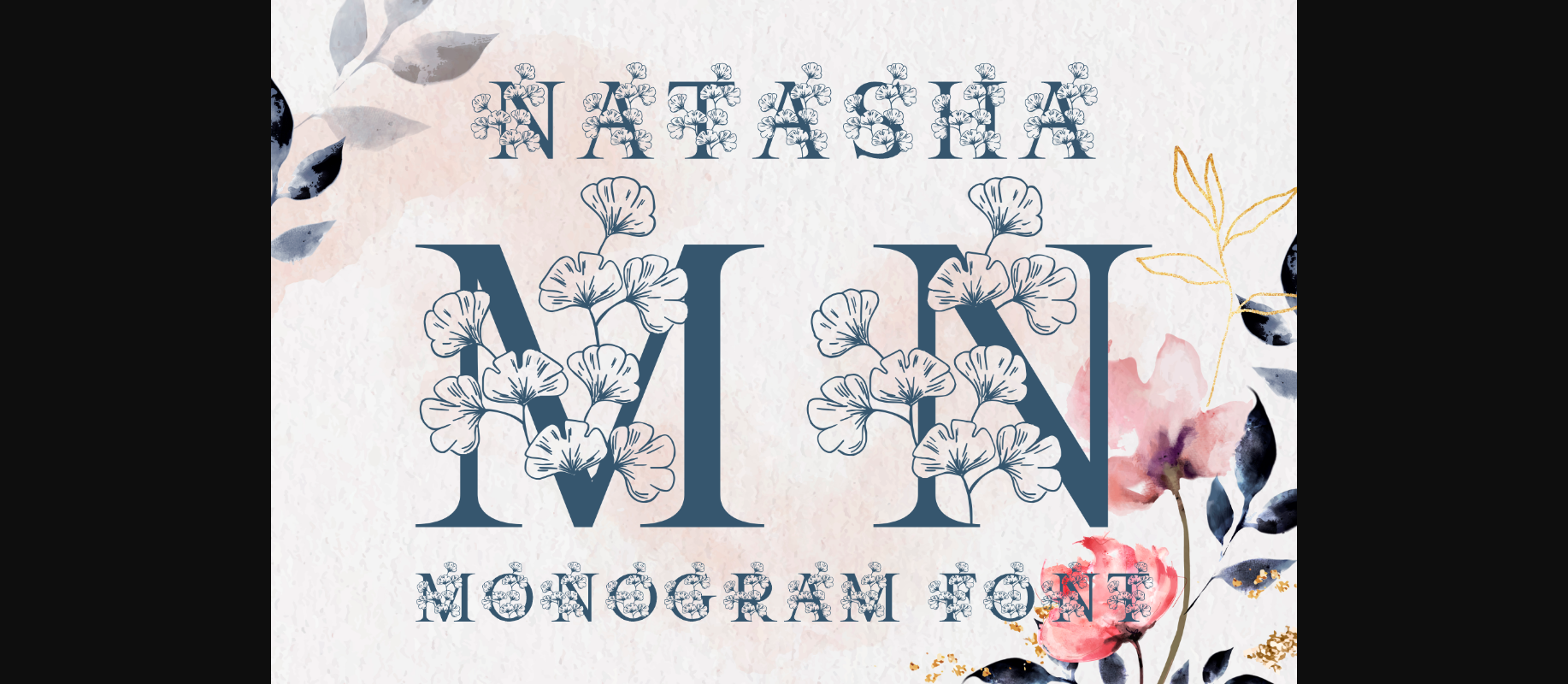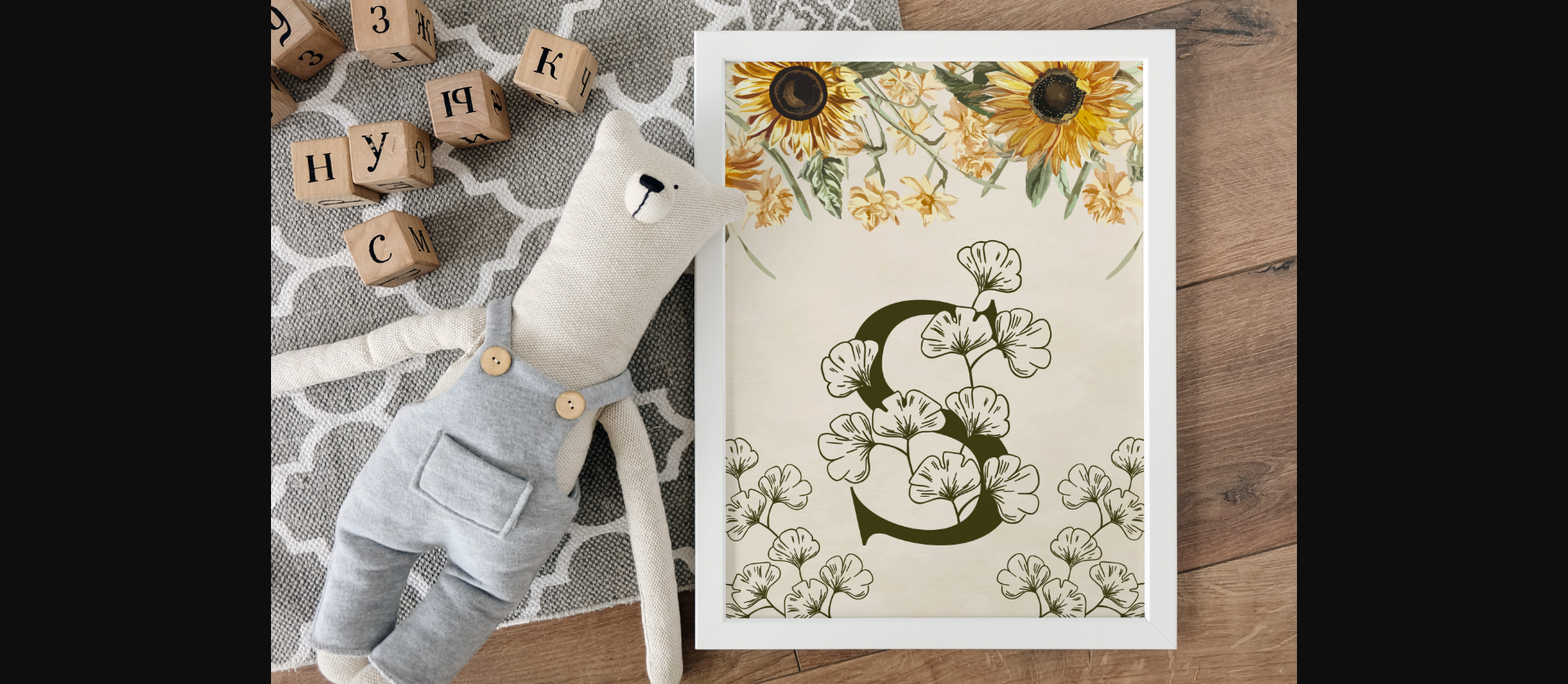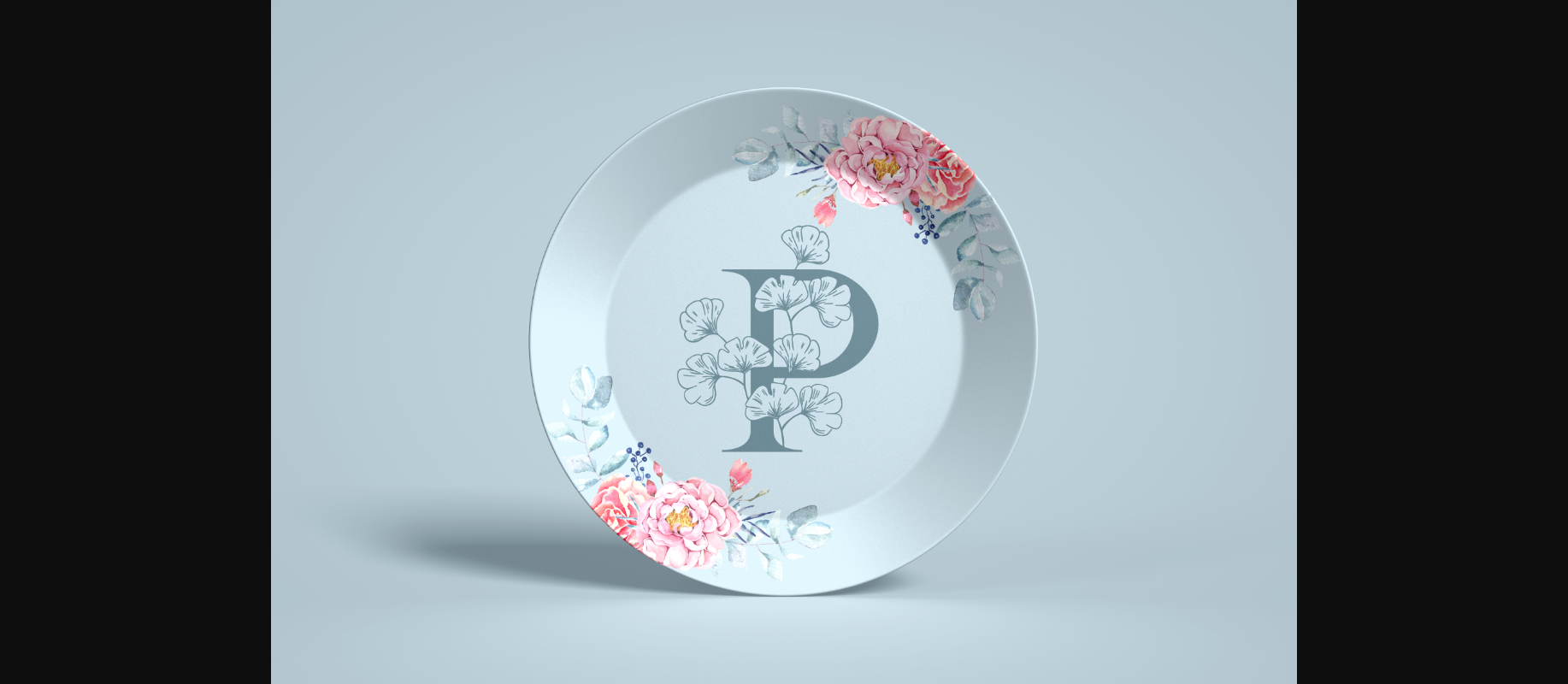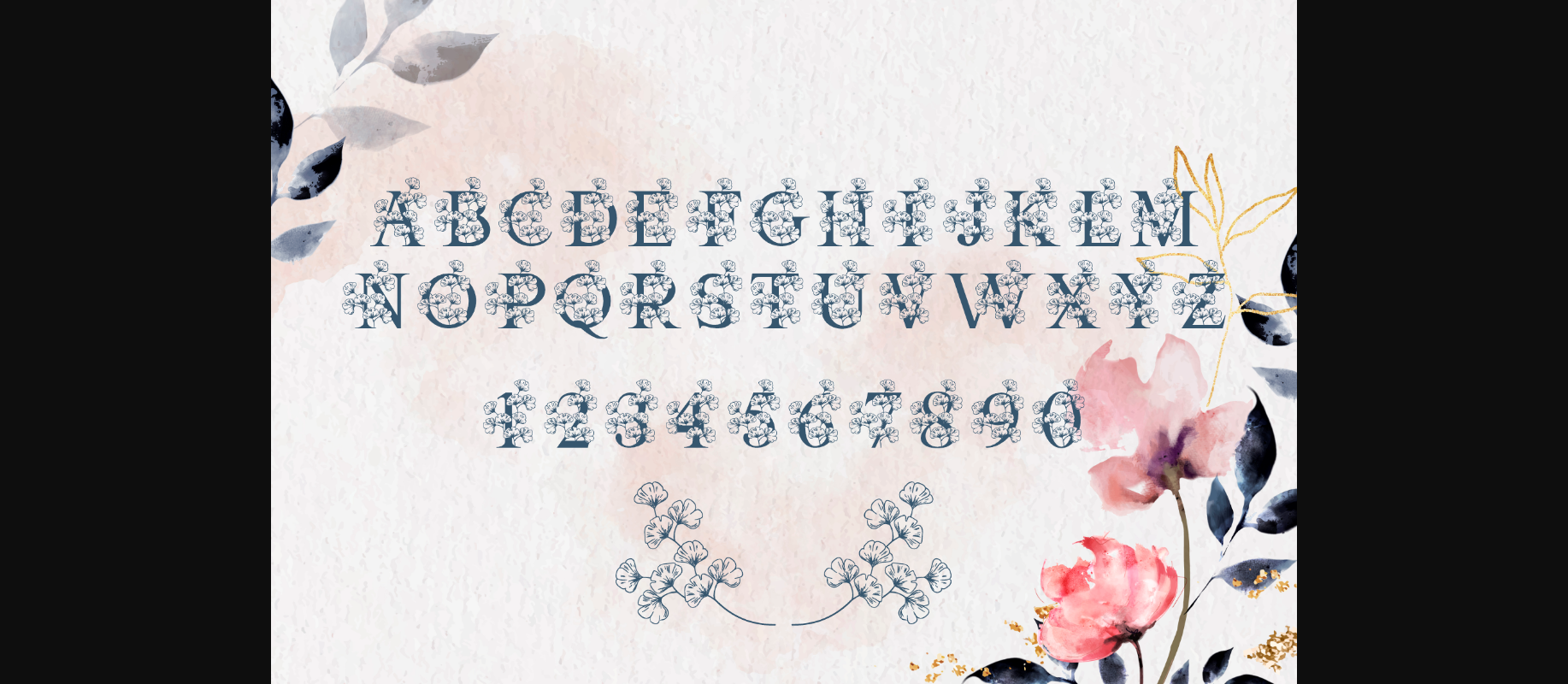
About Monogram Natasha Font
Monogram Natasha is a dainty and unique decorative font. Add this romantic and lovely looking font to each of your love letters, wedding invitations or favorite design ideas, and you will be astounded by the outcome.